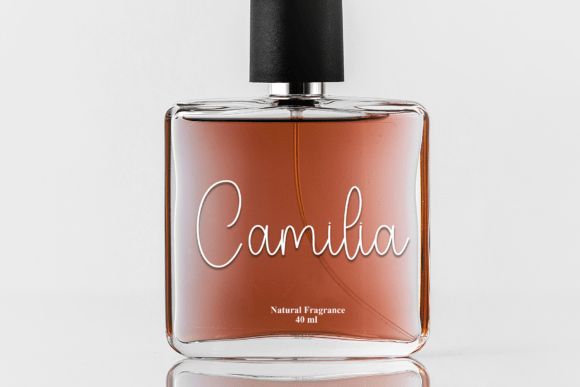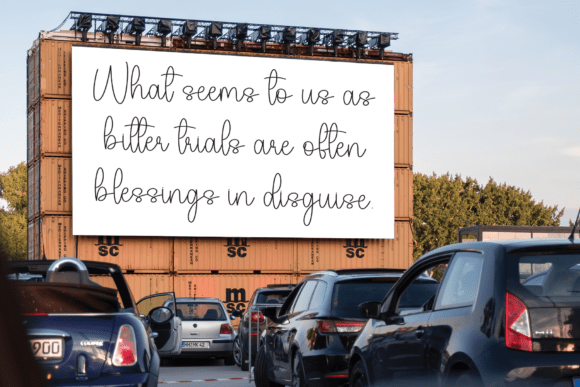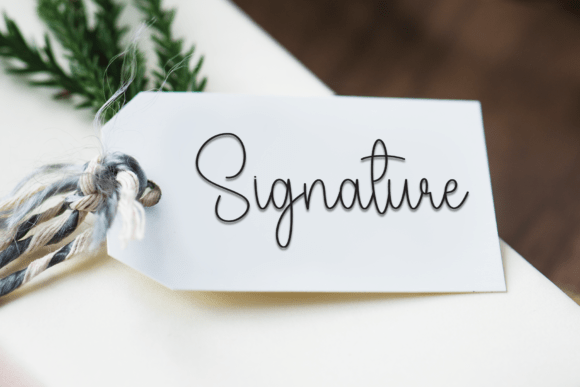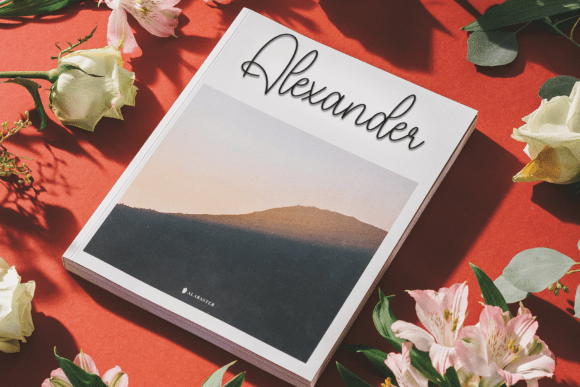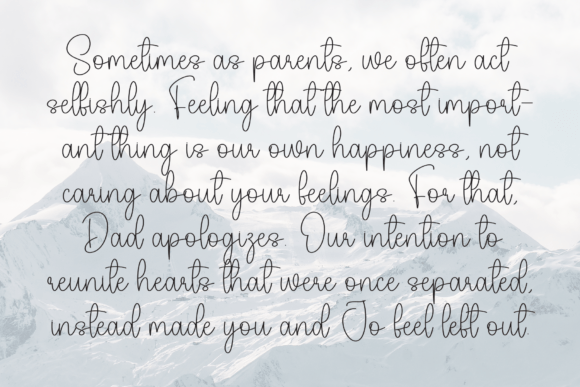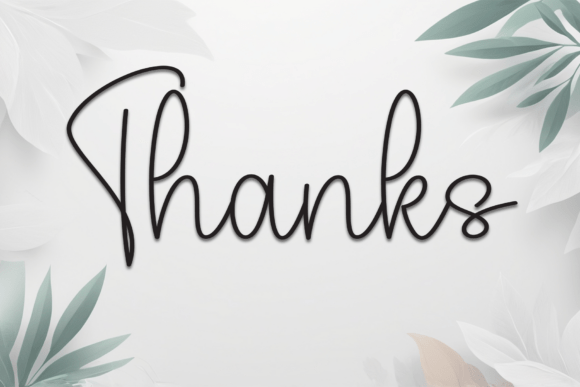
The Power of Handwritten Font: Bringing Creativity to Life
Have you ever found yourself scribbling down ideas in the middle of the night, the only light coming from a faint moonbeam shining through the window? It’s in those moments that inspiration strikes, and the world seems to come alive. For designers, it’s not just about capturing that spark, but also about bringing it to life on paper. And that’s where the Handwritten Font comes in – a delicate, elegant, and flowing font that adds a touch of personality to any design.
With its beautiful and well-balanced characters, the Handwritten Font is the perfect addition to any creative project. Whether you’re working on a logo, a brochure, or a website, this font has the ability to make your ideas shine. As a designer, you know how valuable it is to have a versatile font that can adapt to any style or theme. The Handwritten Font is just that – a valuable tool that can elevate your designs and take them to the next level.
Key Features of Handwritten Font
- Unique Characteristics: The font features a natural, hand-drawn look with subtle imperfections, giving it a personal and human touch.
- Style Options: The font includes various style options, such as bold, italic, and regular, allowing for creative expression and emphasis.
- Language Support: The font supports a wide range of languages, including Latin, Cyrillic, and Greek, making it suitable for global applications.
Handwritten Font Review
Overall, I’d say the Handwritten Font is a unique and charming addition to any design project. ✨ The fluid connections between letters and the natural flair to each character make it perfect for creating a sense of warmth and personality.
- The Handwritten Font is incredibly versatile and works well for a variety of applications, from marketing materials to personal projects.
- It’s also great for adding a touch of elegance and sophistication to your designs.
However, there are a few limitations to keep in mind. ⚠️ The font can be quite difficult to read at smaller font sizes, which may limit its use in certain contexts. Additionally, some of the letters can be a bit too connected, making it tricky to achieve a clean and even layout.
Overall, I’d give the Handwritten Font 4 out of 5 stars. While it may not be perfect for every design project, it’s a great choice when you want to add a touch of personality and warmth to your work. With a little creativity and planning, you can overcome its limitations and achieve some truly stunning results.
Handwritten fonts are ideal for creative and personal projects, such as:
– Invitations and party decorations
– Personalized gifts and stationery
– Journaling and scrapbooking
For best results, use handwritten fonts sparingly and in combination with other fonts to avoid overwhelming the design.
Alternatives to Handwritten Font
Cursive Font
Cursive font is a style of font that mimics handwriting, but is more formal and elegant. It’s suitable for titles, headings, and short paragraphs where a touch of sophistication is needed. Cursive font is similar to Handwritten Font in that it’s also a script font, but it’s more refined and less casual.
Brush Script Font
Brush script font is a digital font that mimics the look of hand-painted or brush-written text. It’s perfect for creating a whimsical or artistic feel in designs. Brush script font is more expressive and varied than Handwritten Font, with a more organic and textured look.
Script Font
Script font is a broad term that encompasses a wide range of fonts that mimic handwriting or cursive writing. It’s suitable for use in a variety of contexts, from formal titles to casual paragraphs. Script font is a more general term than Handwritten Font, and can include a wide range of styles and variations.
Q: How do I create my own Handwritten Font?
Creating a Handwritten Font requires a combination of artistic skill and technical knowledge. You can use vector graphics software like Adobe Illustrator or Sketch to create the font, and then export it in a font format (.ttf or .otf). Alternatively, you can use font creation software like FontForge or Glyphs to create and edit the font. Keep in mind that creating a high-quality Handwritten Font can be a time